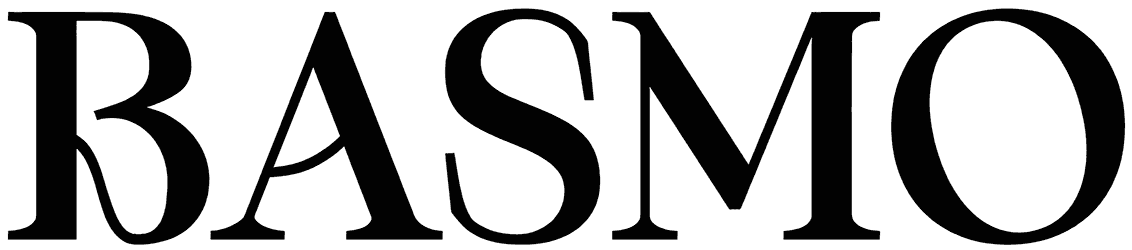
Basmo Font
Give your audience something to admire by styling your words with the unique shapes of Basmo’s letters. Instead of lowercase, you’ll find a simple set of serif fonts for when you just want to be formal but also care about seeming neat and organized.
However, you’re probably going to use it as a curvy font more often. That’s the version that can produce the most charm and allure for your interior design business cards, spa posters, hair stylist logos, and more.